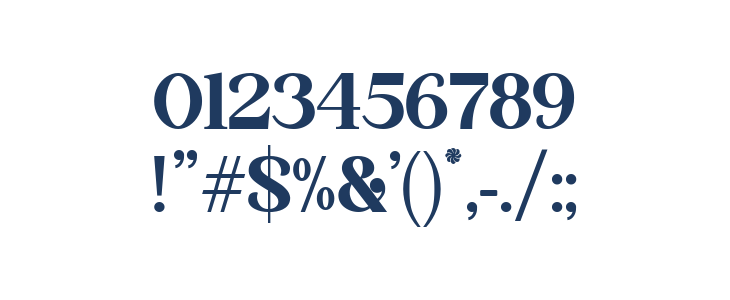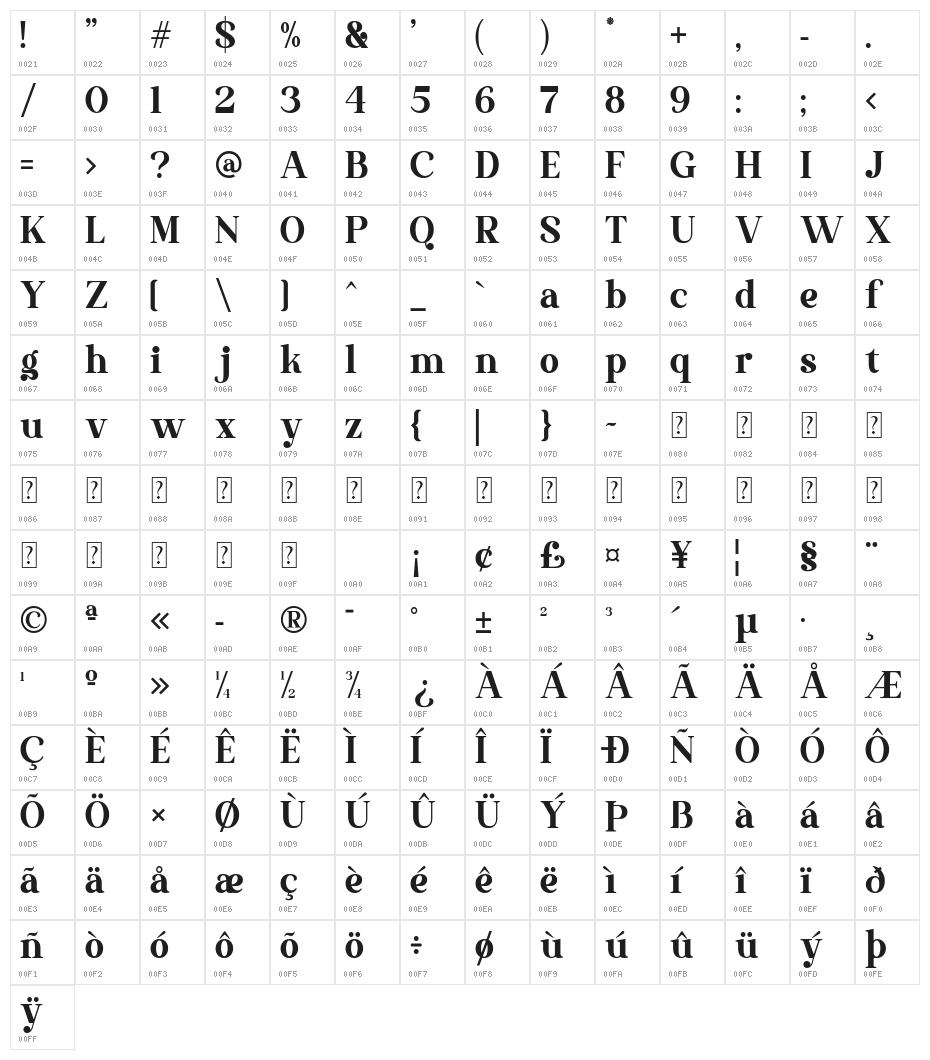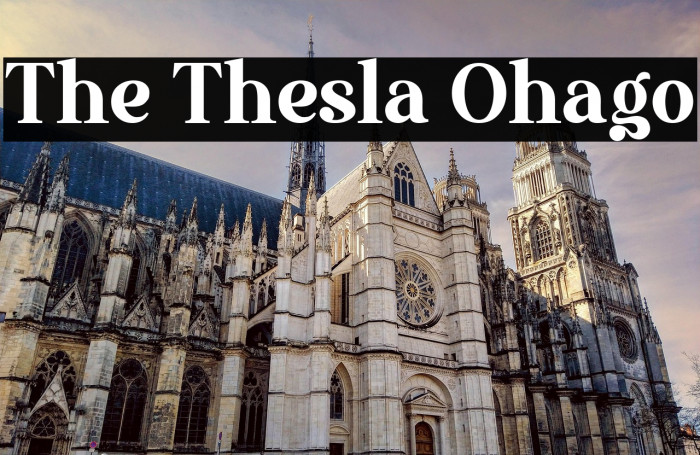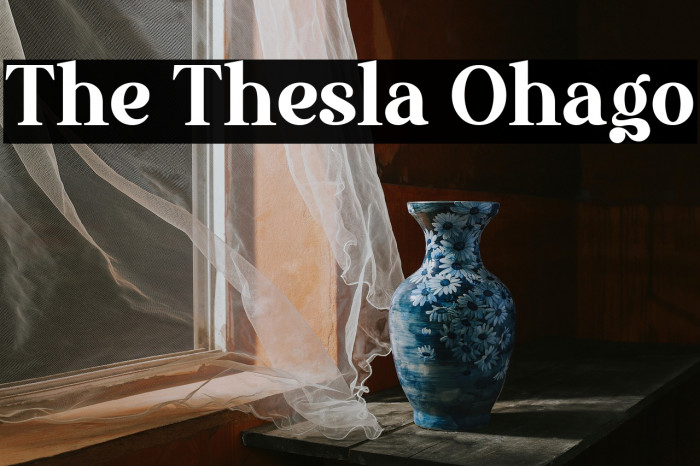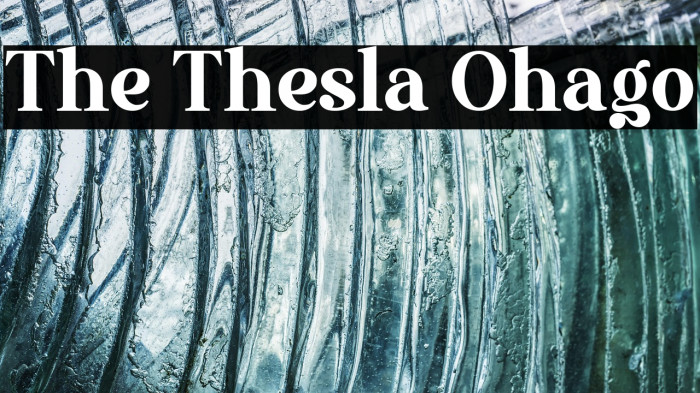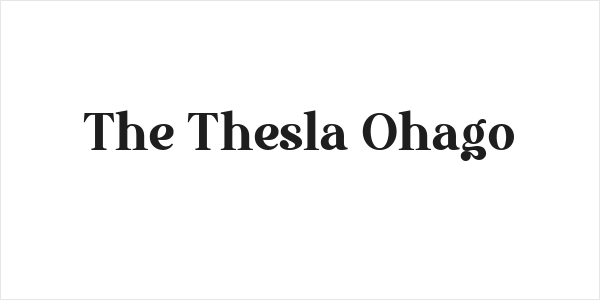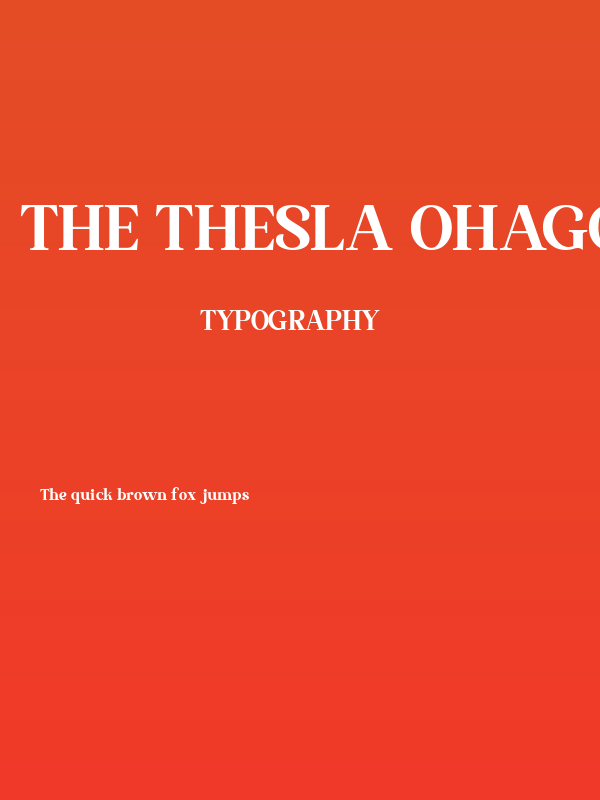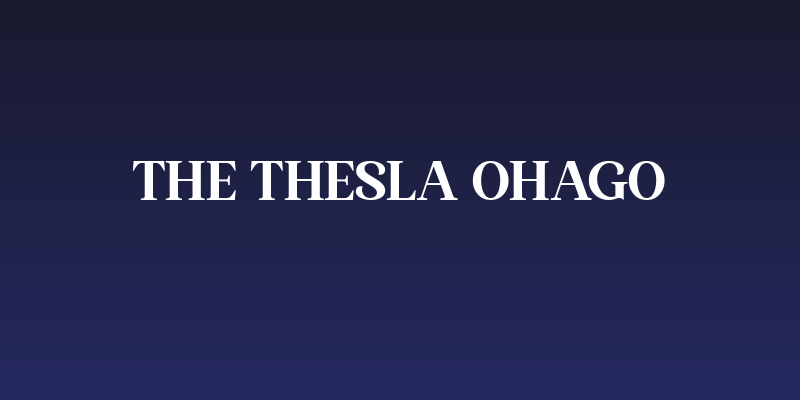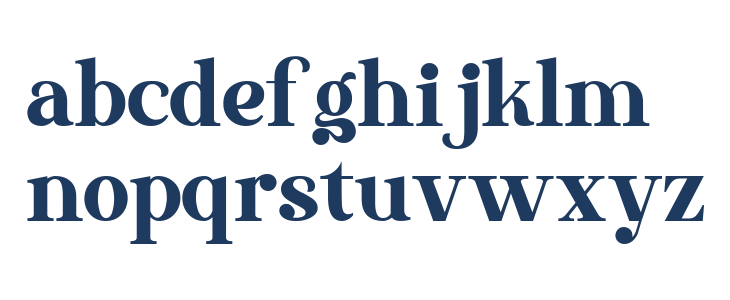
The Thesla Ohago Font
The Thesla Ohago Description
This font features a classic serif style with strong, bold strokes and high contrast between thick and thin lines. The serifs are pronounced, providing a traditional and authoritative appearance. The uppercase letters are tall and commanding, while the lowercase letters maintain a consistent and balanced form. The numerals are clear and distinct, making them easily readable. Special characters are elegantly designed, complementing the overall aesthetic. This font is versatile, suitable for both formal and creative applications, offering a timeless elegance.
| Proposed Projects | Ideal for book covers, editorial design, branding, and formal invitations. |